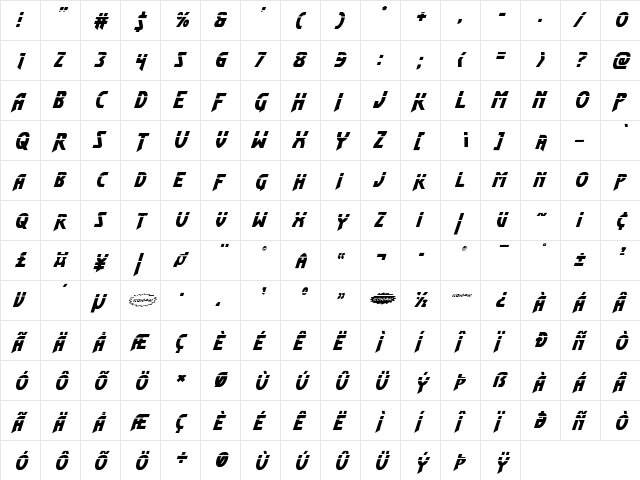
Flash Rogers Laser Italic Italic
Design Context for Flash Rogers Laser Italic Typeface
Flash Rogers Laser Italic is a composed and adaptable typeface that performs quietly and consistently across a wide range of design contexts. The slanted form adds forward momentum and visual energy.
Pro Tip: Use Flash Rogers Laser Italic for emphasis, pull quotes, and subheadings where its slanted energy can add rhythm to the layout.